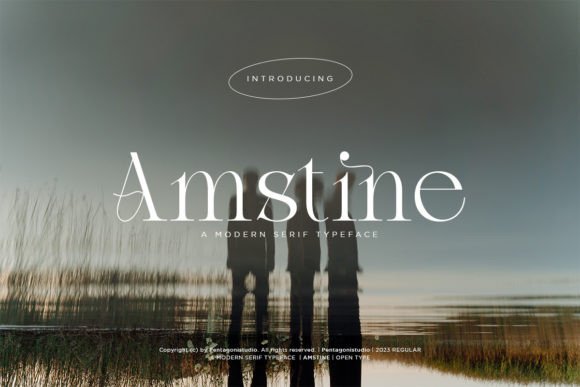
Introducing the Amstine Font, created by Pentagonistudio, the best font for poster in Canva. This sophisticated and graceful serif font is a must-have for anyone looking to elevate their designs with class and refinement.
With its slender and delicately curved serifs, the Amstine Font exudes an air of understated elegance that will capture the attention of anyone who sees it. Its precise letterforms and generous spacing make it a perfect choice for high-end branding, editorial layouts, and luxury packaging.
But the Amstine Font is not just visually stunning. It is also incredibly versatile and functional, making it the ideal font for a wide range of design projects. Its PUA encoding means that you can access all of the amazing glyphs and ligatures with ease, allowing you to create truly unique and stunning designs that will stand out from the crowd.
So whether you are a professional designer or someone looking to create beautiful designs on your own, the Amstine Font is the perfect choice. With its timeless elegance and versatility, it is sure to become a go-to font in your design arsenal.